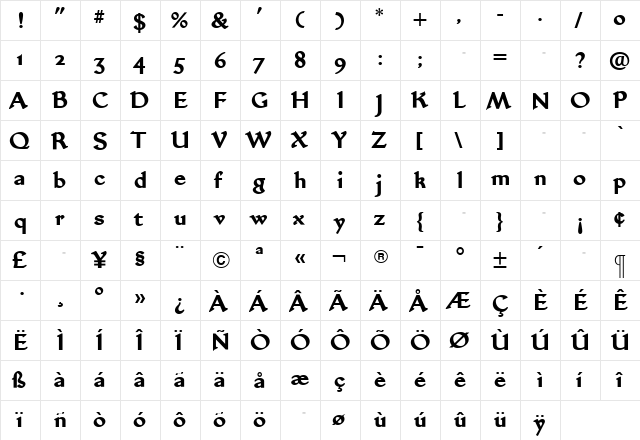
JubileeBold Roman Font Preview
JubileeBold Roman
JubileeBold Roman Font Details
Design Context for JubileeBold Typeface
JubileeBold takes a measured approach to typography — its balanced proportions and neutral character make it a reliable workhorse for both digital and print work. Its bold stroke weight gives it real presence on the page.